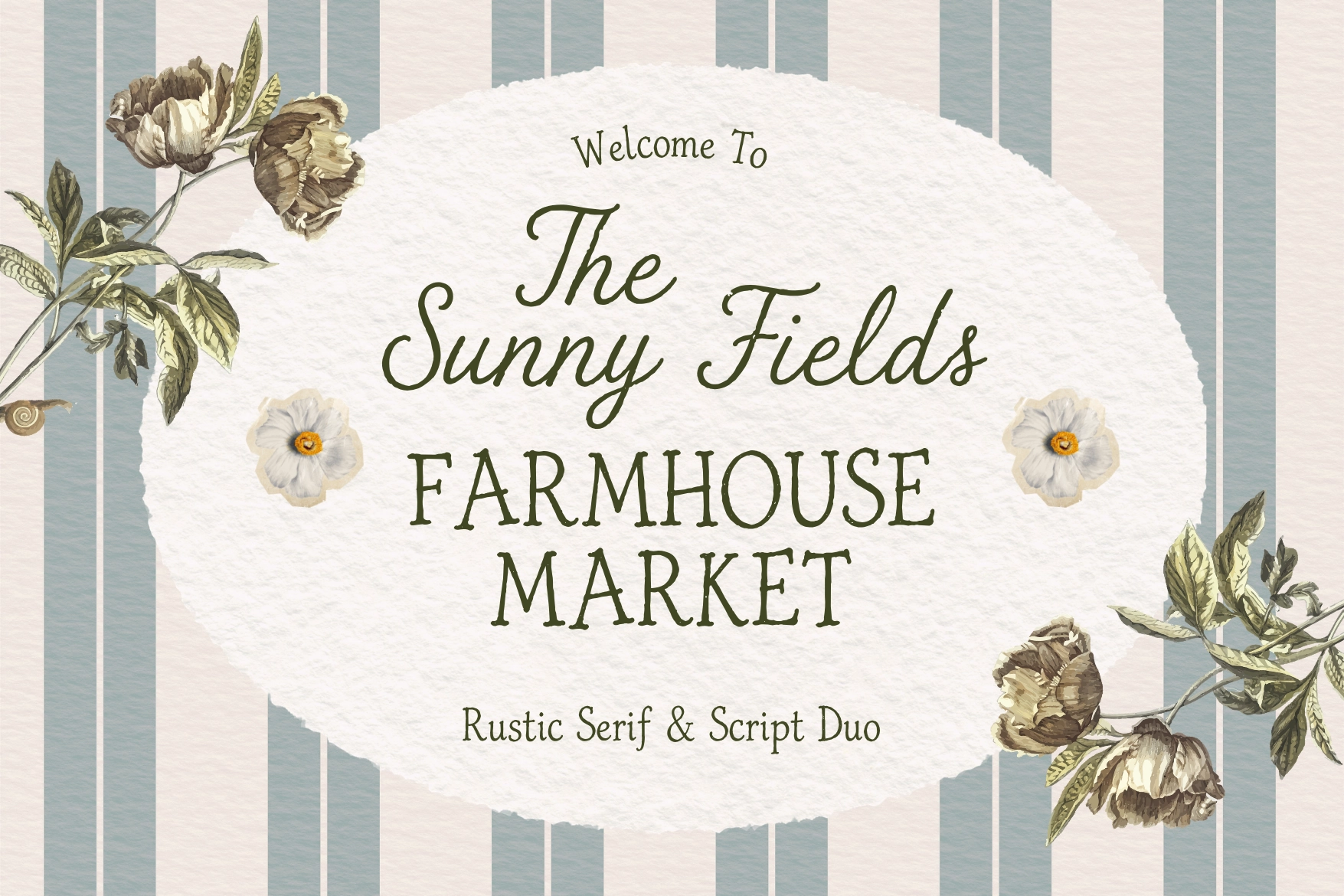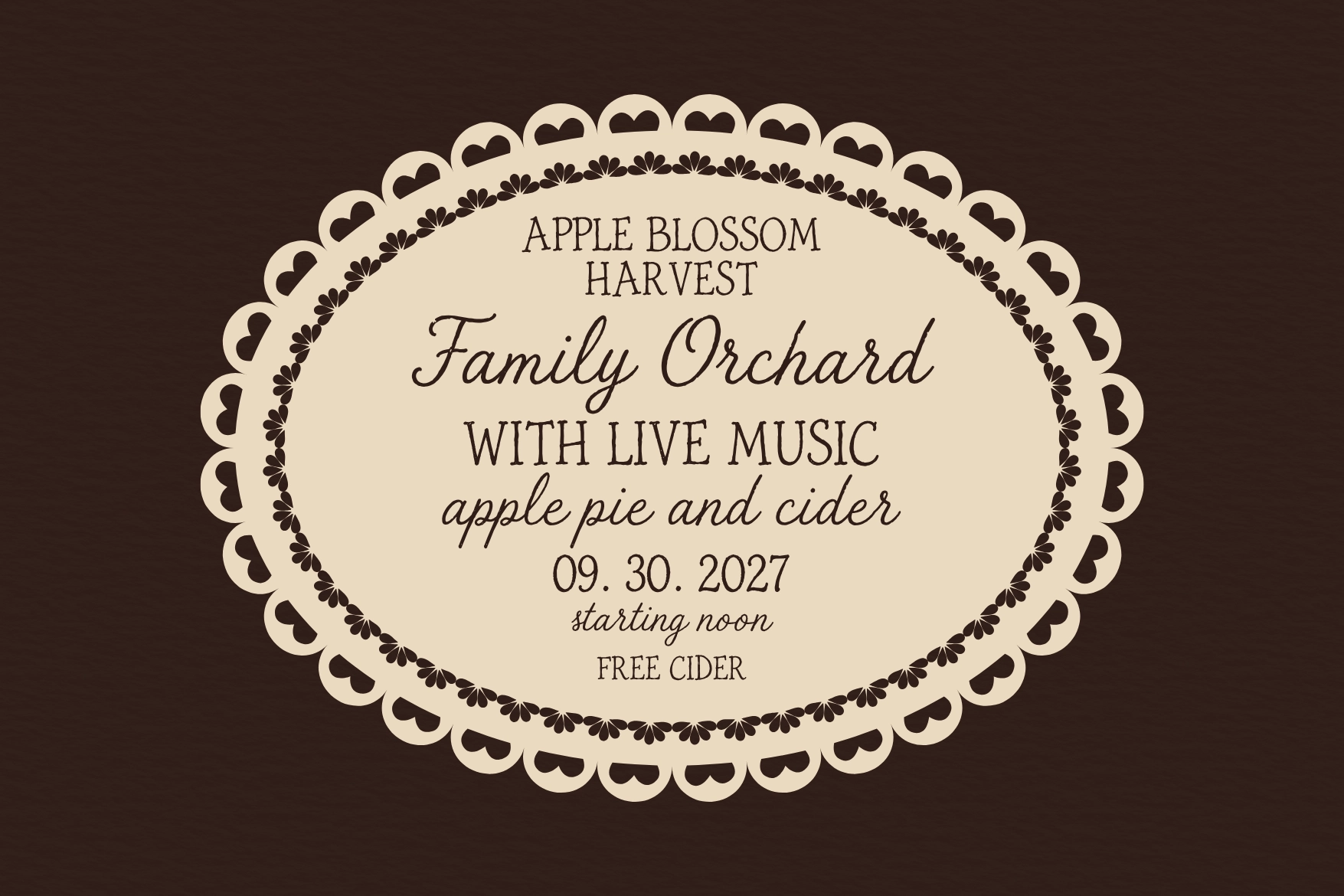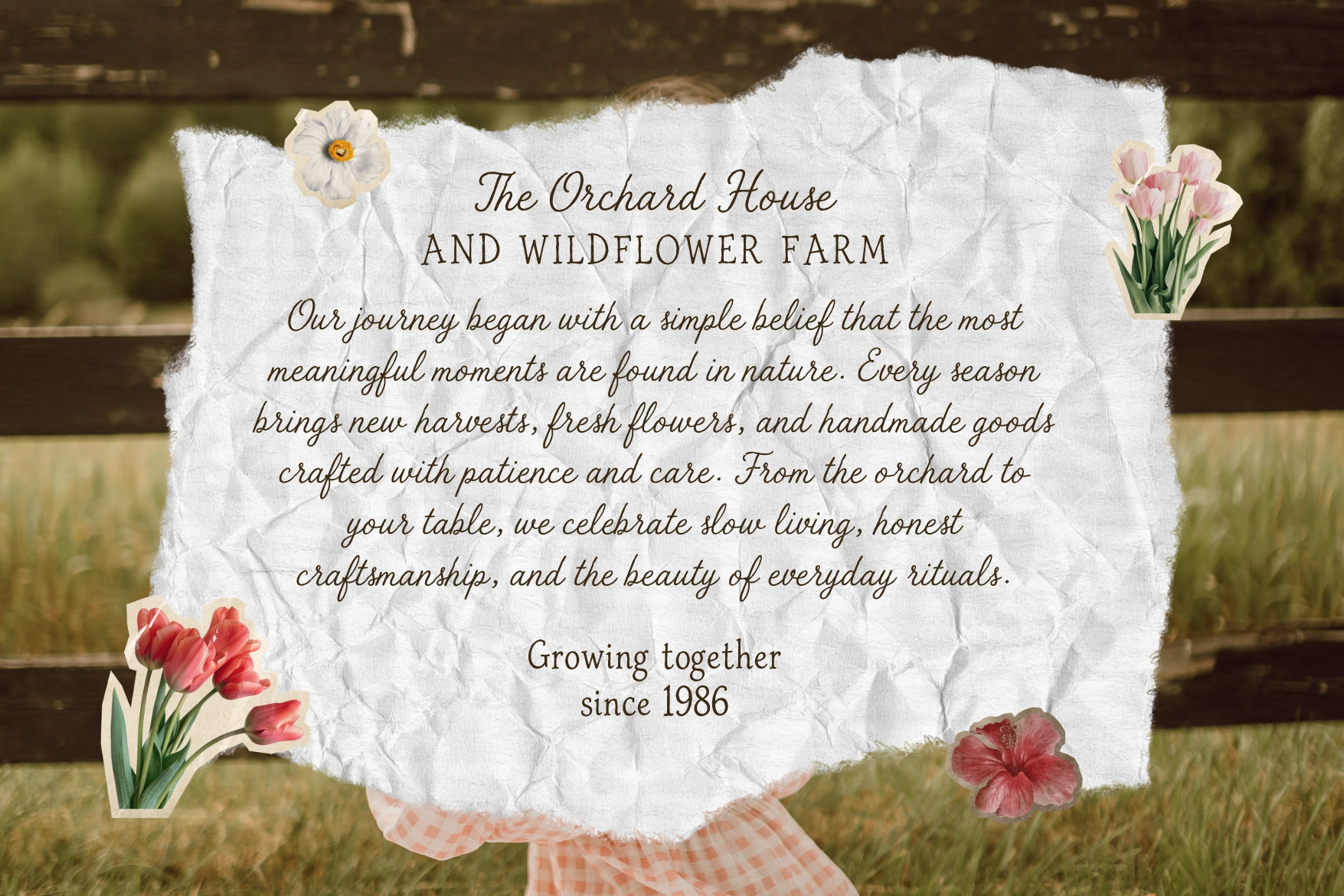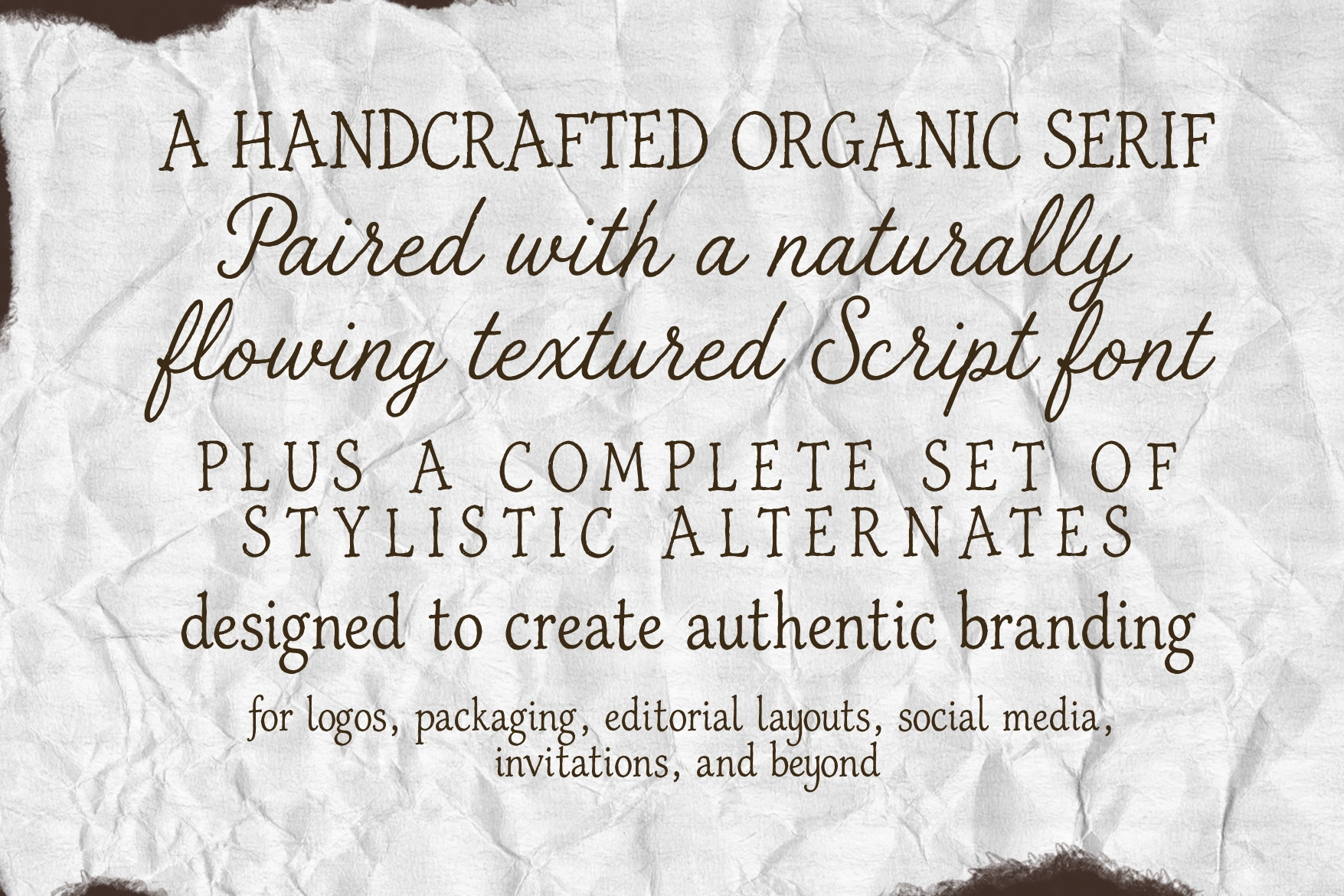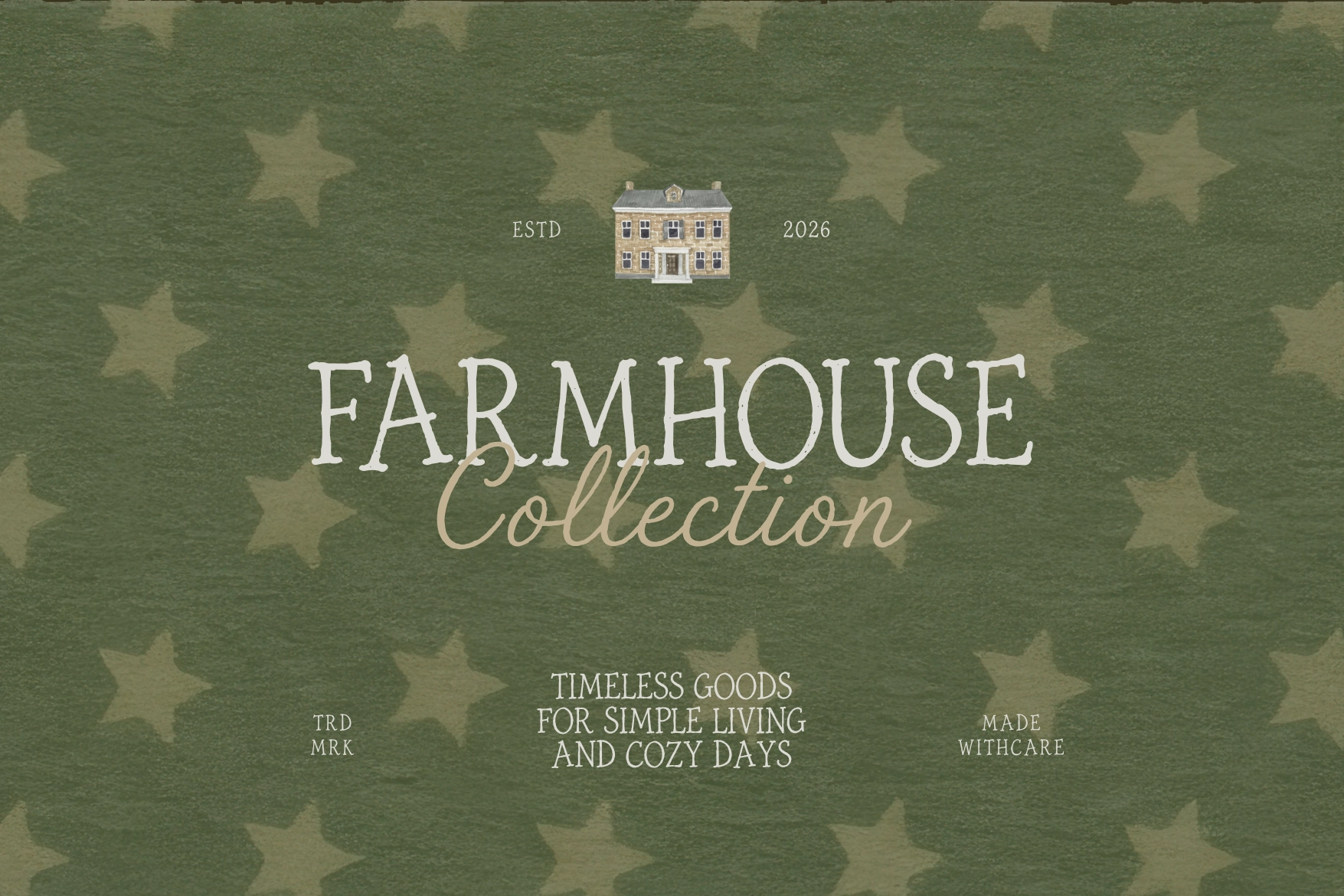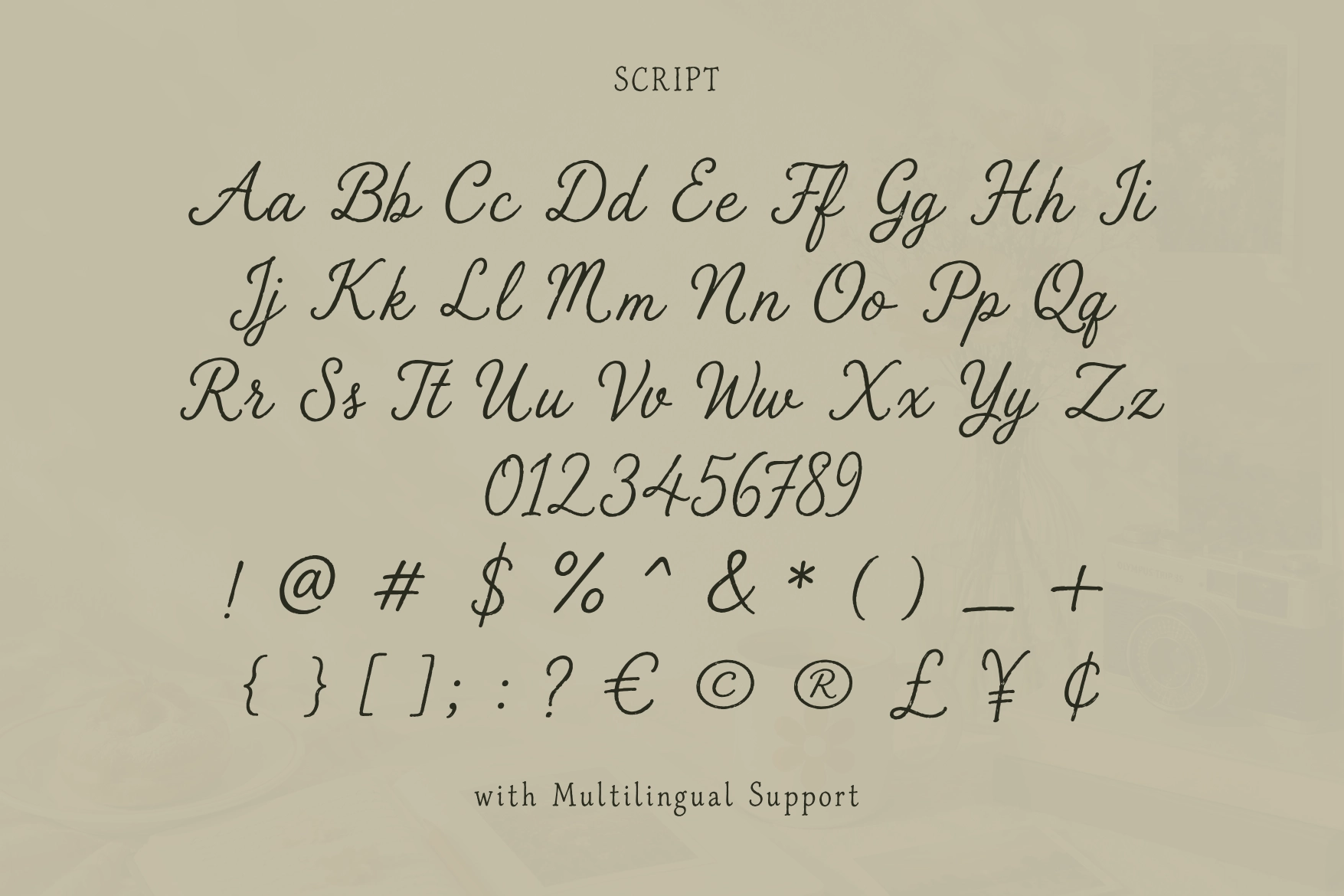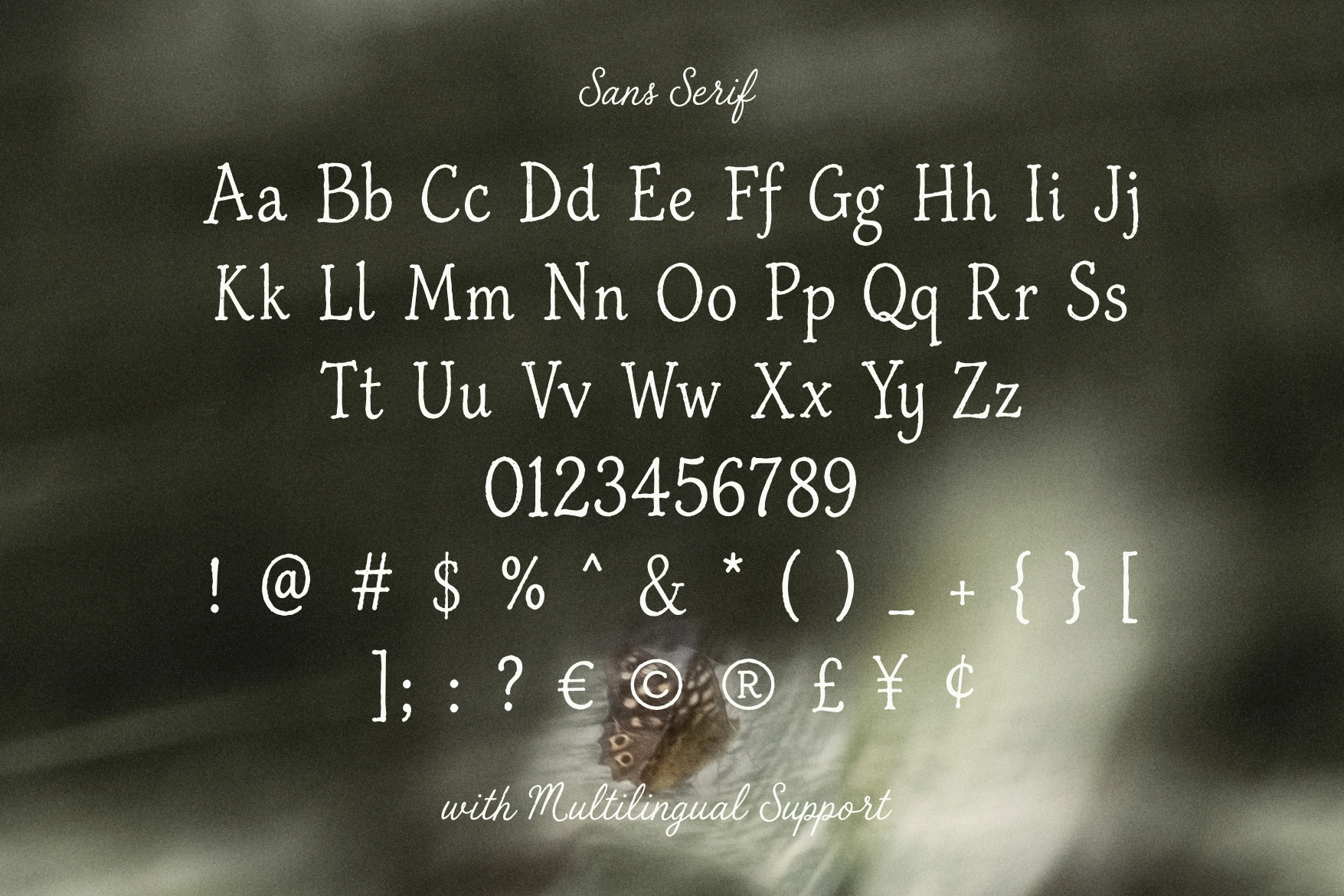
The Sunny Field - Rustic Serif & Script Duo
The Sunny Field pairs a flowing handwritten script with a rustic serif companion, built for a farmhouse market sign or a jar of homemade cider rather than a corporate letterhead. The serif carries slightly rough, hand-cut strokes and understated serifs, while the script loops in a loose, ink-heavy hand that reads like it was written on a chalkboard at a roadside stand.
Set the serif for headlines and body labels, then drop the script in for a name or tagline underneath — the pairing holds up across packaging, invitations, and editorial layouts without turning precious. Use it for farmhouse and lifestyle branding, product labels, wedding invitations, café signage, and social media graphics.
• 2 fonts: script & serif;
• uppercase & lowercase;
• numerals & punctuation;
• ligatures & stylistic alternates;
• multilingual support